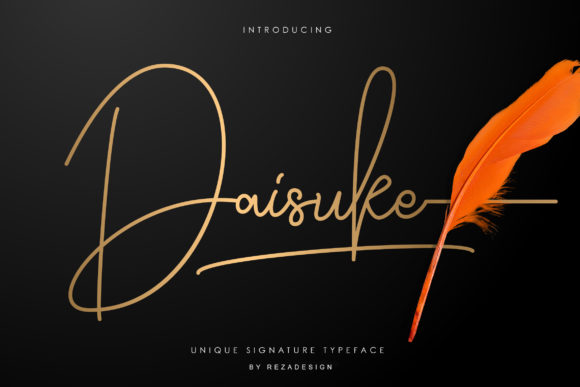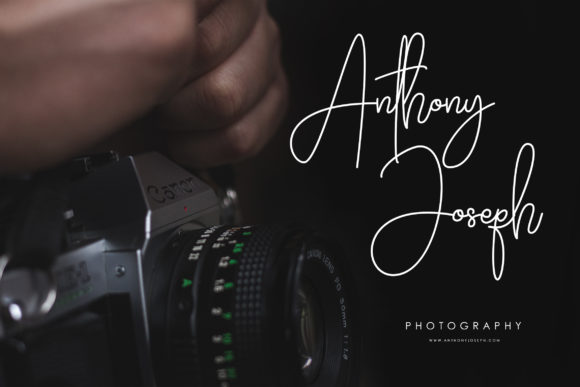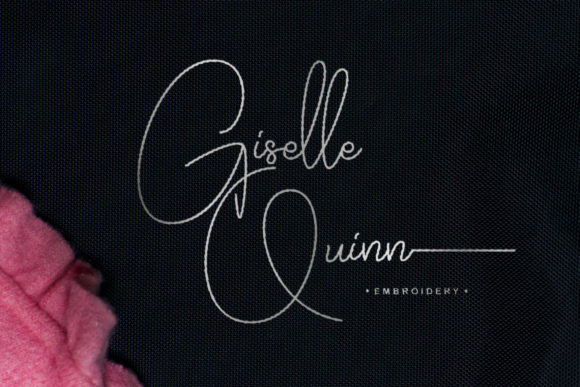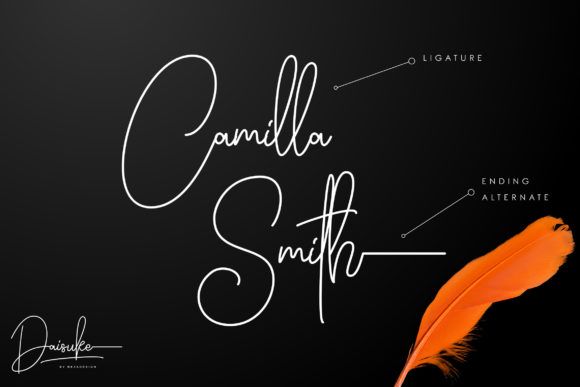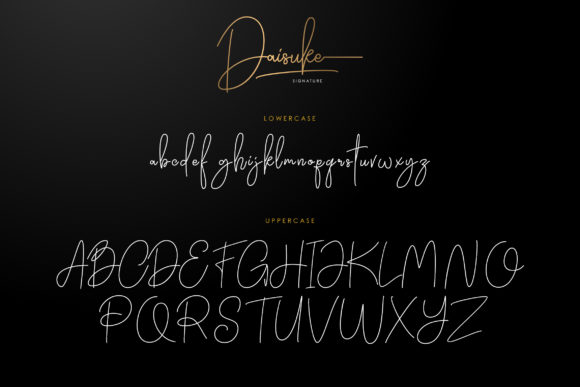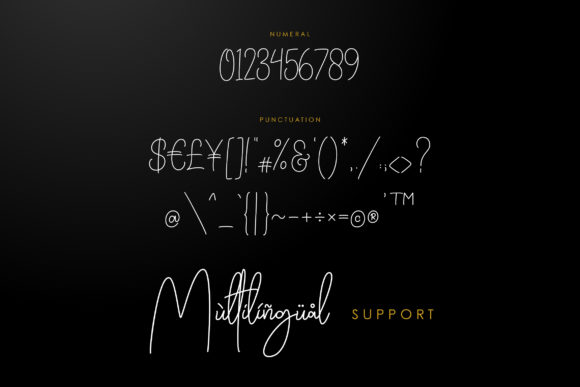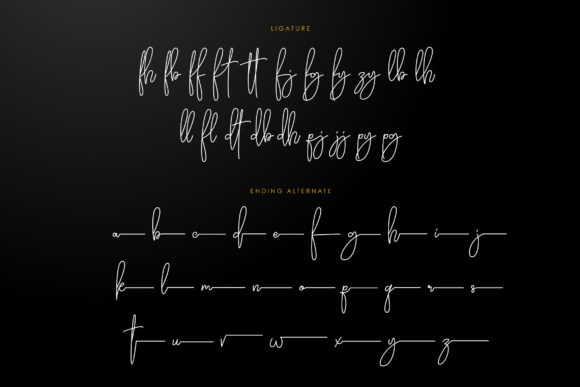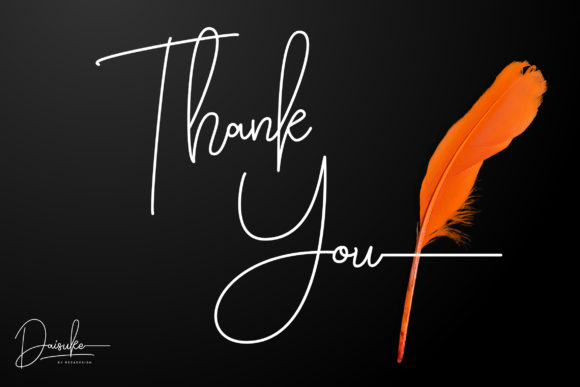
HomeScript FontsDaisuke Font Script Fonts Daisuke Font FacebookXPinterestWhatsApp Daisuke Font Poster 2 Daisuke Font Poster 3 Daisuke Font Poster 4 Daisuke Font Poster 5 Daisuke Font Poster 6 Daisuke Font Poster 7 Daisuke Font Poster 8 About Daisuke Font Daisuke is a light and elegant handwritten font, full of energy. It will add a unique feel to any design project. DOWNLOAD ON CREATIVE FABRICAThis font is sold and delivered by Creative Fabrica. Font Canyon may earn a commission if you buy through this link. People also explored Mister Olliver Font Hella Font Sanrossi Sonata Duo Font Adrenalines Font Halokia Font Dream Night Font Boom Love Font Fortman Font Using Fonts in Digital Marketing: Tips to Strengthen Your Brand Identity 346 0 TagsDaisuke Font Previous articleAmore FontNext articleReality Shift Font LEAVE A REPLY Cancel reply Comment: Please enter your comment! Name:* Please enter your name here Email:* You have entered an incorrect email address! Please enter your email address here Website: Save my name, email, and website in this browser for the next time I comment. Personal Use Free Farmhouse Christmas Personal Use Free Read more about this font Blast Personal Use Free Read more about this font Unispace Personal Use Free Read more about this font Feather Script Personal Use Free Read more about this font BLOG Free vs Paid Fonts: Why Investing in Premium Fonts Is Worth It Free vs Paid Fonts: Why Premium Fonts Are Worth It in 2025 The debate of free vs paid fonts continues in the design world. While... Top 10 Handwritten Fonts That Elevate Your Designs Fonts That Capture the Spirit of New York City The 10 Best Handwriting Fonts to Add Personality to Your Designs